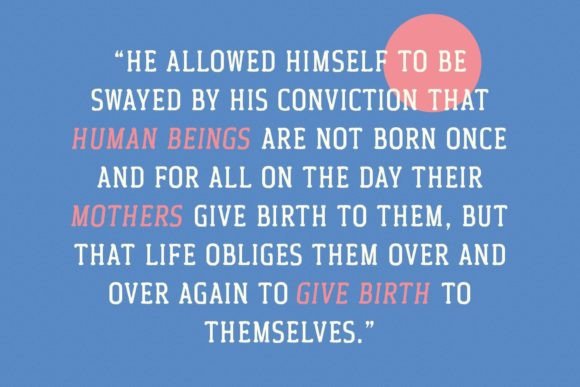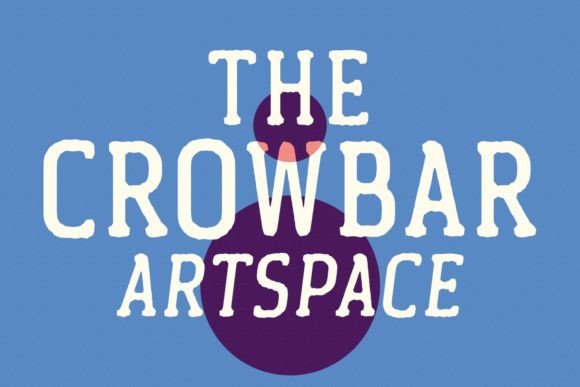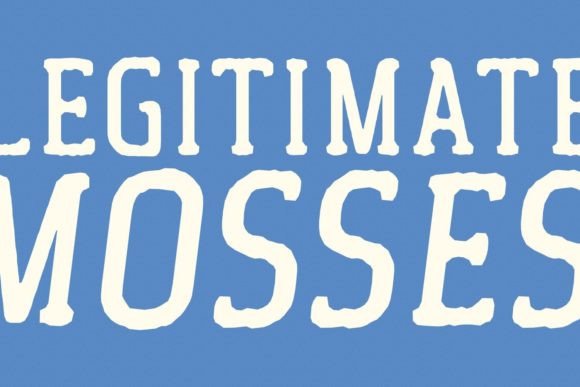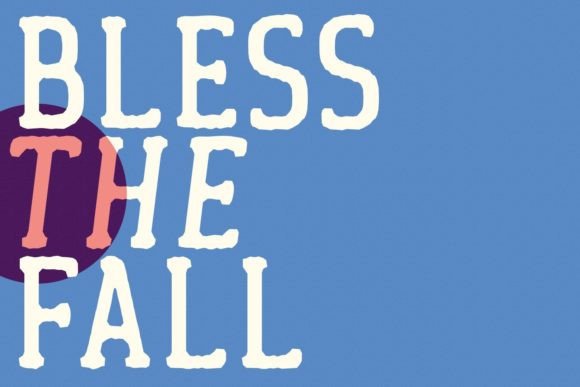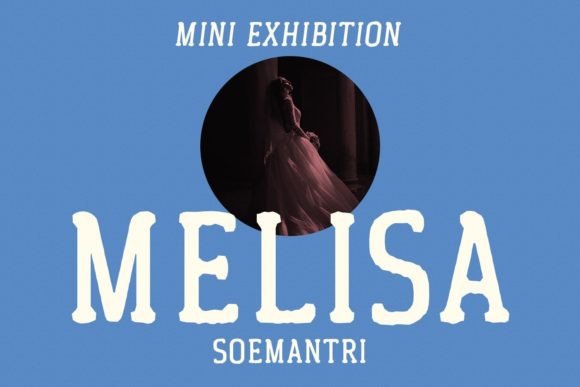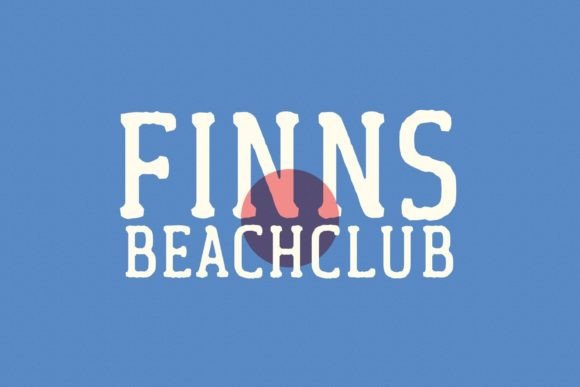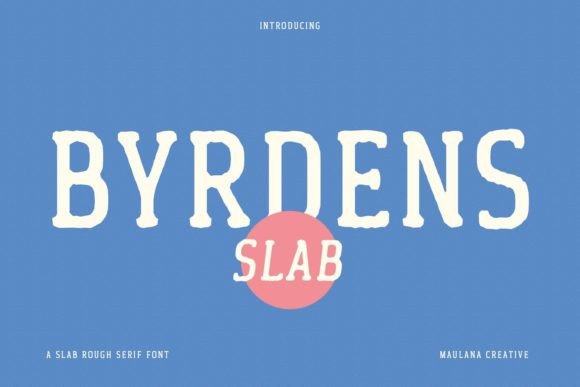
Discover the Retro Charm of Byrdens Font
Have you ever been in the middle of a design project, and suddenly, you’re stuck on finding the perfect font? I recall a recent experience where I was working on a logo design for a client who wanted a retro vibe. After hours of searching, I stumbled upon Byrdens Font, and it was love at first sight! With its regular rounded stroke and fun character, Byrdens instantly captured the essence of what my client was looking for.
A Honest Review of Byrdens Font
What I Love About Byrdens ✨
- ✅ Retro Aesthetic: Byrdens boasts a unique retro slab serif design that adds a nostalgic touch to any project.
- ✅ Versatility: It’s incredibly versatile, making it suitable for logo design, social media posts, movie titles, book titles, and even long texts.
- ✅ Pairing Options: Byrdens pairs beautifully with script typefaces, offering a dynamic and visually appealing combination.
- ✅ Legibility: The font maintains clarity and legibility, even at smaller sizes, which is crucial for body text.
- ⚠️ Limited Online Resources: While Byrdens is gaining popularity, there are still limited online resources and examples of it in use, which might make it slightly harder to visualize in different contexts.
- ⚠️ Overuse of Emphasis: Given its bold and attention-grabbing nature, using Byrdens for extended texts without mixing in other fonts might overwhelm the reader.
- Explore OpenType features, glyphs, and stylistic alternates to maximize the font’s creative potential.
Exploring Alternatives to Byrdens Font
If you’re looking for similar fonts or want to explore other options, consider the following:
- Rockwell: A classic slab serif font with a geometric look, ideal for headlines and titles that require a strong presence.
- Playfair Display: While a high contrast font, its luxurious feel can complement Byrdens in designs requiring an elegant touch.
- Montserrat: For a more modern take, Montserrat offers geometric and clean lines, suitable for both headings and body text.
- Merriweather: A classic serif font with a vintage feel, great for long-form content and pairing with Byrdens for added contrast.
The Backstory Behind Byrdens Font
Byrdens Font was inspired by the retro typography of the 1950s and 60s, a period known for its bold and playful typefaces. The designer aimed to capture the essence of that era while making the font versatile enough for modern design needs. Through careful craftsmanship, Byrdens was brought to life, blending nostalgia with functionality.
Q: What type of projects is Byrdens best suited for?
A: Byrdens is highly versatile and works well for logo designs, social media graphics, movie and book titles, and even extensive body text.
Q: How does Byrdens pair with other fonts?
A: Byrdens pairs exceptionally well with script typefaces and other contrasting fonts, allowing for dynamic and engaging visual compositions.
Q: Is Byrdens suitable for body text?
A: While Byrdens can be used for body text, especially in larger sizes, its bold nature makes it more suitable as a headline or secondary text font. Mixing it with a more straightforward font can enhance readability.